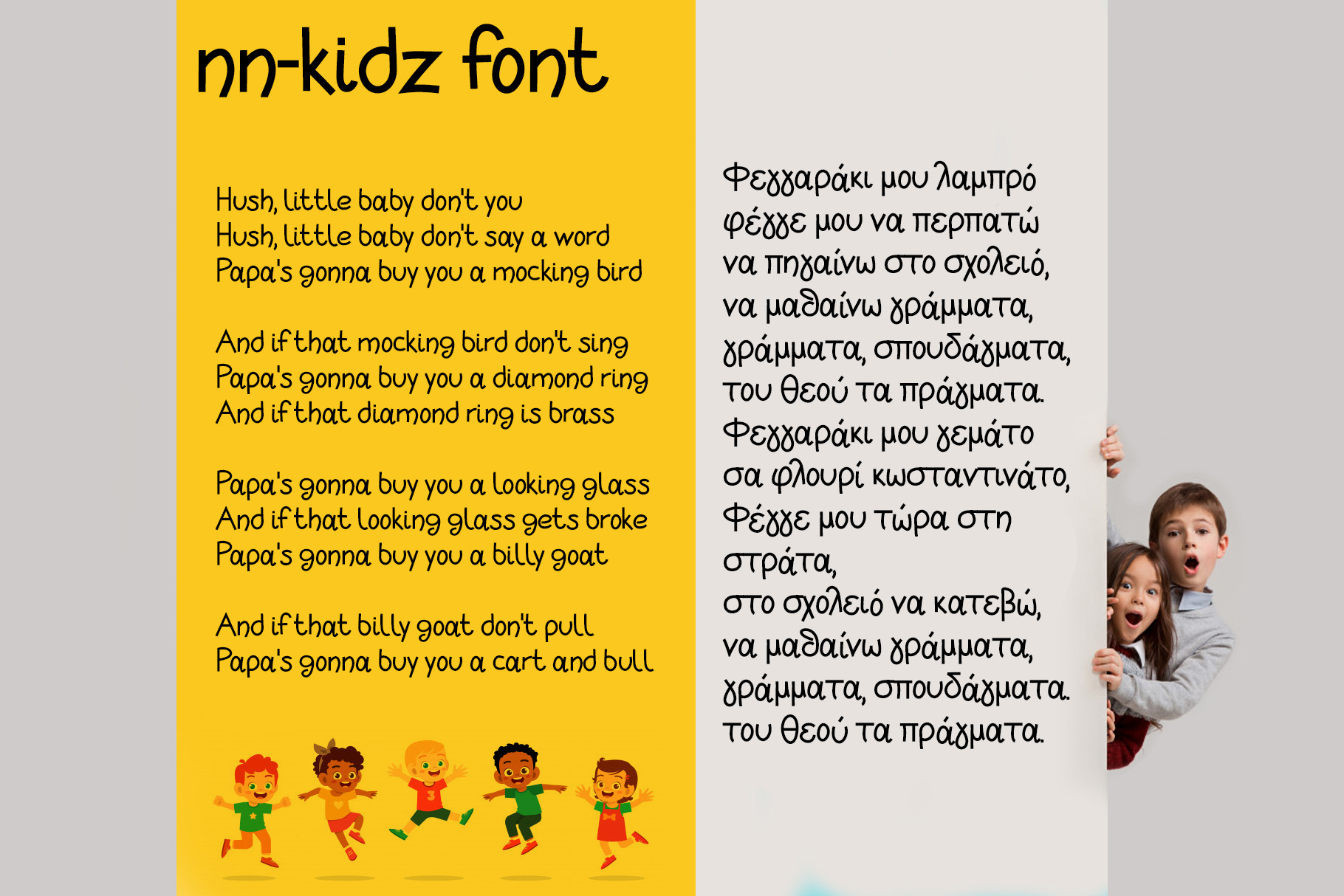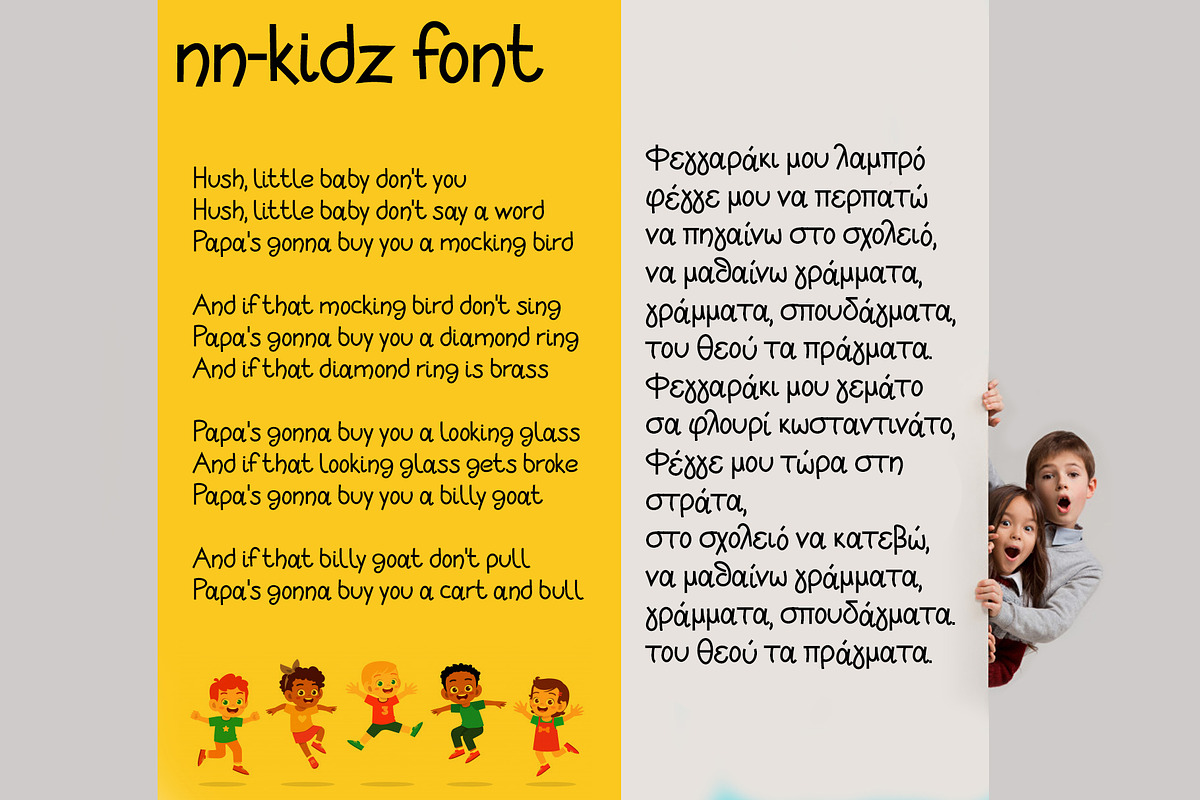
NN-Kidz font
A kids font from the NN series fonts. The download file contains two files. NN-Kidz regular and NN-Kidz Bold font types. English and Greek characters included. All keyboard symbols, too. Thank you all for your support so far!